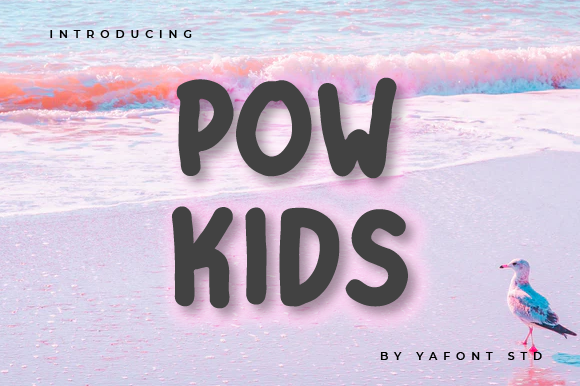
Prepare to be captivated by Pow Kids Font, the playful and authentic display font that's sure to ignite your creativity. This chunky lettered masterpiece embodies the essence of childhood, making it the perfect choice for any kid-centric project.
Picture this: your designs adorned with the charming curves and whimsical strokes of Pow Kids Font. It's like sprinkling a touch of childlike wonder into your creations, making them burst with life and imagination. Whether you're designing posters for school plays, creating invitations for birthday parties, or crafting greeting cards that spread joy, Pow Kids Font is your go-to font for all things playful and delightful.
But wait, there's more! Pow Kids Font isn't just visually stunning; it's also incredibly versatile. Its chunky letters and eye-catching style make it perfect for a wide range of design projects. Imagine using it to create eye-catching social media graphics, design vibrant website headers, or add a touch of whimsy to your marketing materials. The possibilities are endless!
So, why wait? Embark on a creative adventure with Pow Kids Font today. Let your imagination soar as you bring a touch of playfulness and authenticity to all your designs. With Pow Kids Font by your side, your creations will be sure to leave a lasting impression on everyone who sees them. Unleash the power of creativity and make your designs come alive with Pow Kids Font!